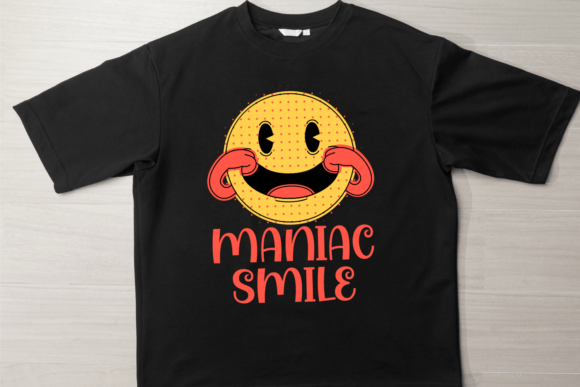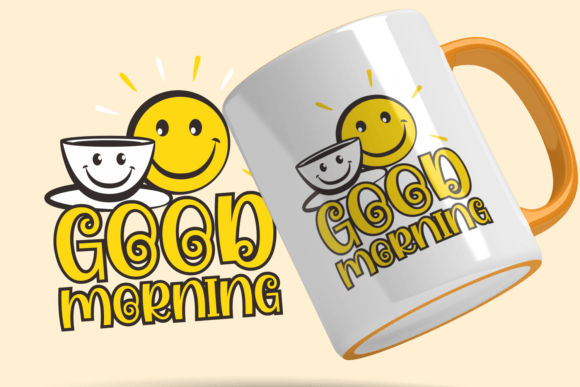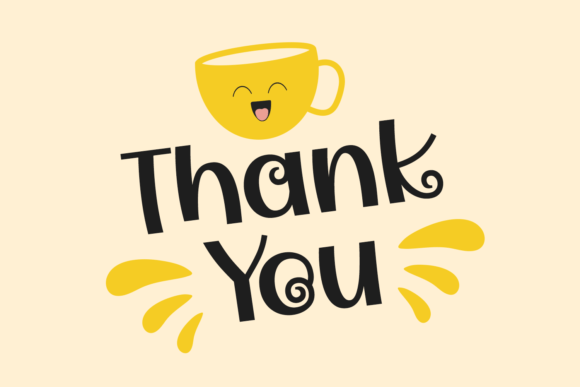
Introduction to Smile Cause Font
Do you remember the moment you decided to add a personal touch to your project? Maybe it was a whimsical illustration, a bold color scheme, or a font that simply made your design pop. For designers, finding the perfect font can be a game-changer, and that’s where the Smile Cause Font comes in – a delightful, handwritten typeface that’s sure to put a smile on your face and your clients’ faces too.
Whether you’re working on a children’s book, creating party invitations, or developing a playful brand identity, the Smile Cause Font is an excellent design resource to have in your arsenal. This high-quality font is not only free to download, but it also boasts a transparent background, making it incredibly versatile and easy to use in any creative project.
Smile Cause Font Key Features
- High-quality design: Smile Cause Font is a high-quality design resource, perfect for a wide range of creative projects, from logos to graphics.
- Unique, playful style: Smile Cause Font features a unique, playful style that is perfect for adding a touch of whimsy to creative projects.
Honest Review: Smile Cause Font
I recently stumbled upon the Smile Cause Font, and I must say it’s been a game-changer for my creative projects. As a designer, I’m always on the lookout for high-quality design resources that can elevate my work. The Smile Cause Font definitely delivers.
- ✨ Unique and quirky design style that’s perfect for adding a touch of personality to your projects
- ✨ Highly customizable, making it easy to adapt to different design needs
- ⚠️ The font may not be suitable for all design projects, especially those requiring a more formal or professional tone
Overall, I’m thoroughly impressed with the Smile Cause Font. It’s a fantastic design resource that’s perfect for creative projects that require a bit of whimsy and personality. If you’re looking for a high-quality font that’s easy to use and customize, I highly recommend giving it a try.
For the best results, use the Smile Cause Font on a transparent background to give your design a clean and minimalist look. You can also use it in conjunction with other design elements to create a unique and eye-catching visual effect. Experiment with different font sizes and colors to find the perfect combination for your creative project.
The Smile Cause Font is a versatile design resource that can be used in a variety of creative projects, including logos, social media graphics, and marketing materials. Its high-quality design and transparent background make it perfect for use in digital and print projects.